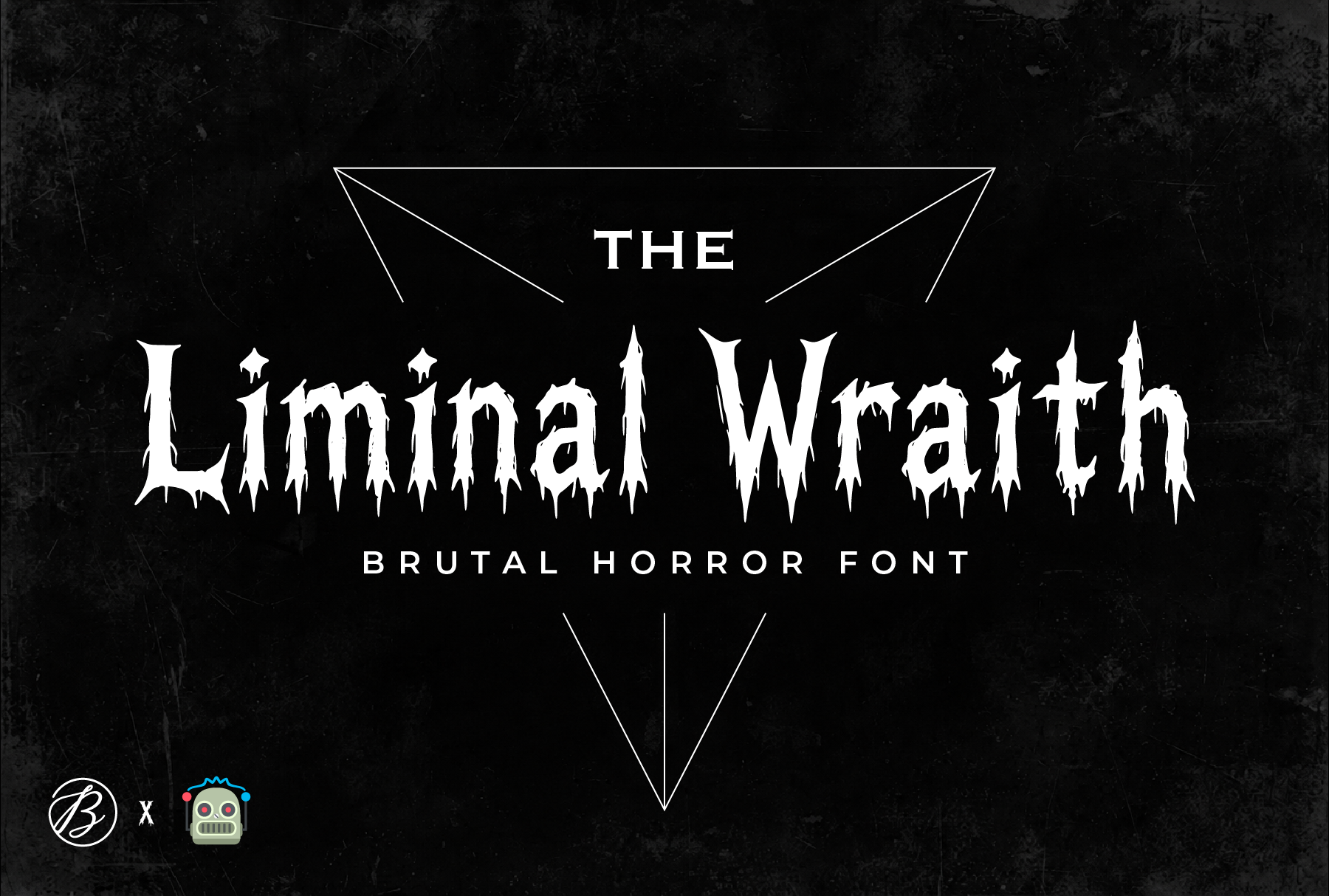
Liminal Wraith | Horror Font
Liminal Wraith is a haunting horror display font inspired by ghostly apparitions, cursed folklore, and forgotten realms. Its sharp, jagged forms and dripping details create an eerie sense of decay, as if each letter is slowly dissolving into darkness. Perfect for horror movie titles, Halloween designs, game graphics, book covers, posters, and any project that demands a chilling supernatural atmosphere. Bold, unsettling, and instantly recognizable, Liminal Wraith captures the feeling of encountering something that should not exist.